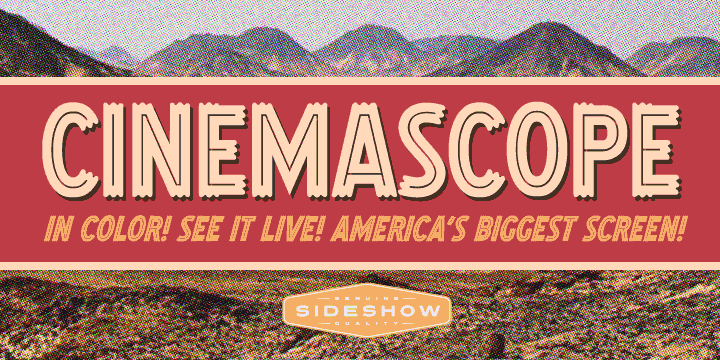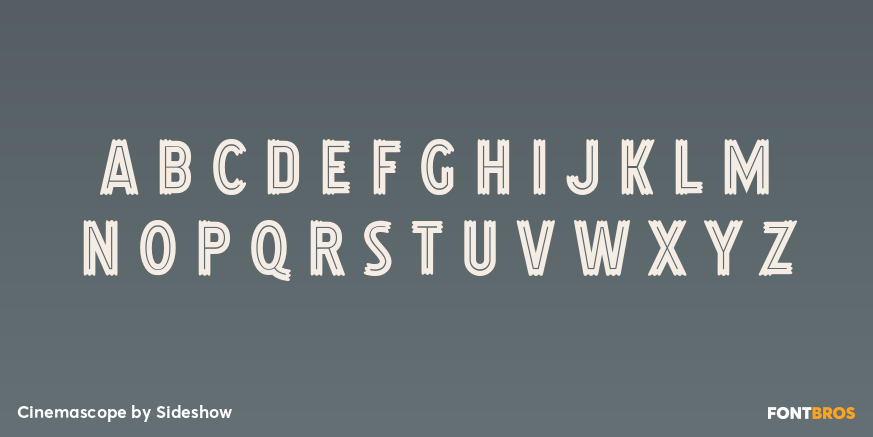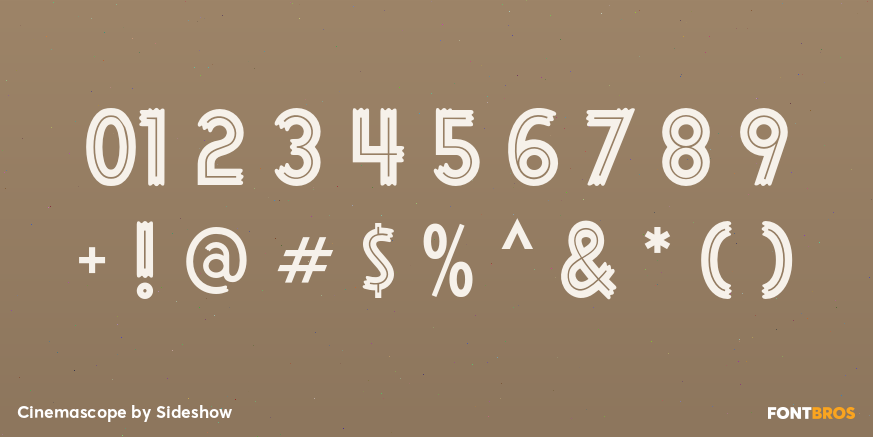
Cinemascope
Font Family by Sideshow
Give your designs that marquee touch with this classic Hollywood themed display font. Cinemascope combines a smart Art Deco look with a stunning inline effect and jagged ends creating a modern yet charmingly pleasing aesthetic.